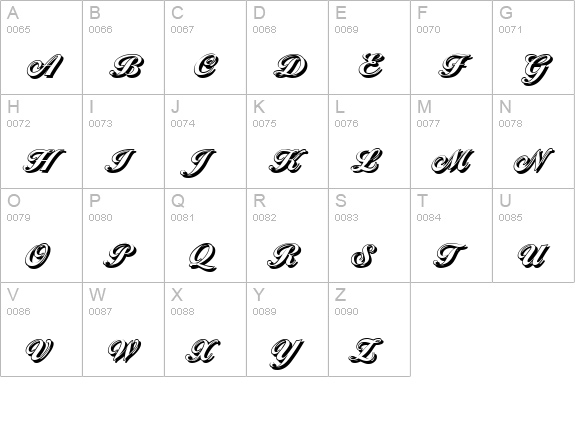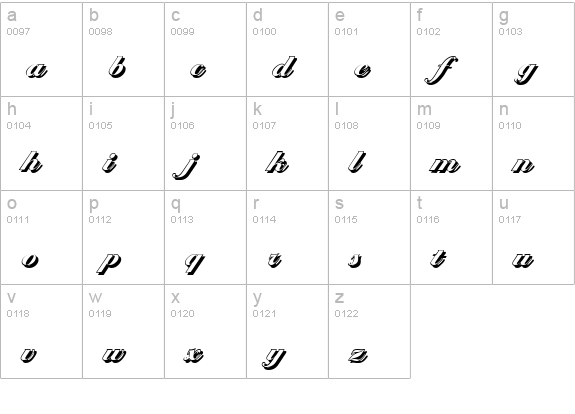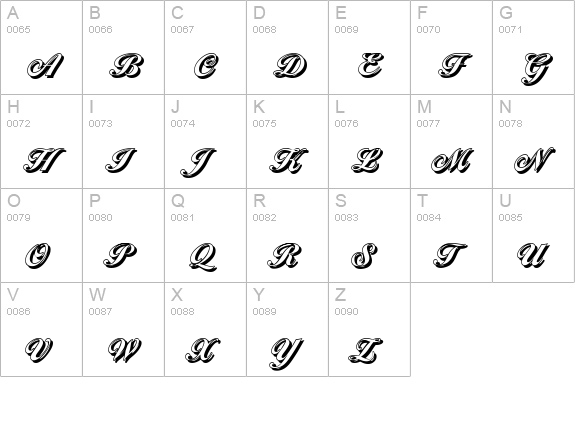
BallantinesShadow-Heavy-Regular is a heavy, high-impact variant in the BallantinesShadow typeface family \xE2\x80\x94 well suited to high-impact headlines, posters, and display advertising.
BallantinesShadow-Heavy-Regular is a striking and bold font that exudes a sense of power and strength. Its heavy shadow effect adds depth and dimension to each character, making it perfect for headlines, titles, and other attention-grabbing design projects. The sharp edges and clean lines of this font give it a modern and sophisticated look that commands attention. This font is available for free download at FontsMarket.com, making it easily accessible for designers and creatives looking to add a touch of drama and impact to their projects. Whether you are working on a poster, logo, or website design, BallantinesShadow-Heavy-Regular is sure to make a bold statement and leave a lasting impression on your audience. Download it now and unleash the power of this dynamic font in your next project.